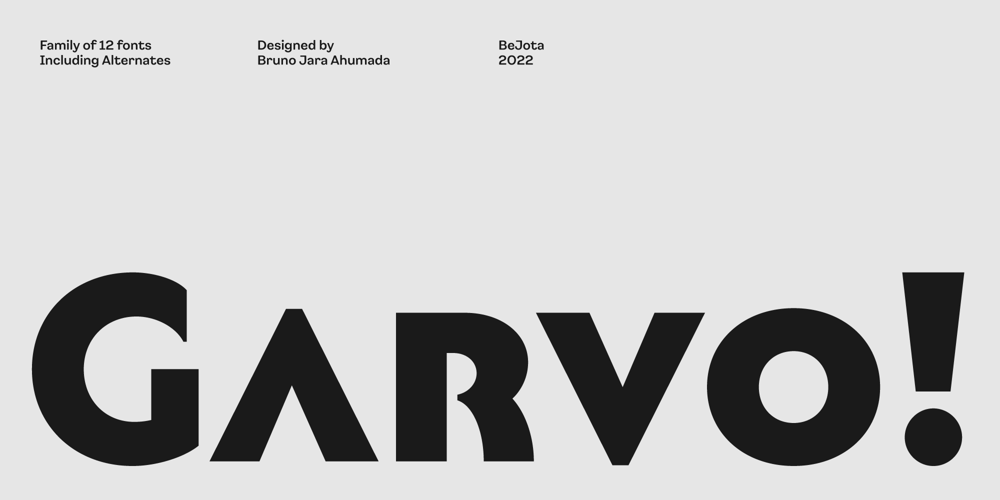
Garvo Font Family was designed by Bruno Jara Ahumada and published by BeJota. Garvo contains 12 styles and family package options. Garvo is based on old Hollywood movie posters, vintage film credit designs and pays homage to Herb Lubalin’s Serif Gothic font & lettering. This is why Garvo is named after the acclaimed international actress Greta Garbo.The Garvo family comes in 6 weights (from Thin to Black) and includes 2 different subfamilies: Garvo and Garvo Poster. Garvo is perfect for short readable texts, such as advertising and packaging designs, while Garvo Poster brings a wide range of contextual alternatives which makes it perfect for high impact pieces. Both styles increase the overall family flavor with discretionary ligatures, small caps figures. The 12 styles of Garvo are perfectly well suited for branding projects, album covers, audiovisual related designs, magazines and layouts, among other uses.